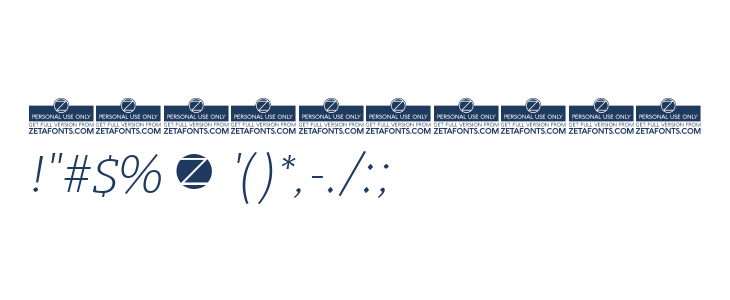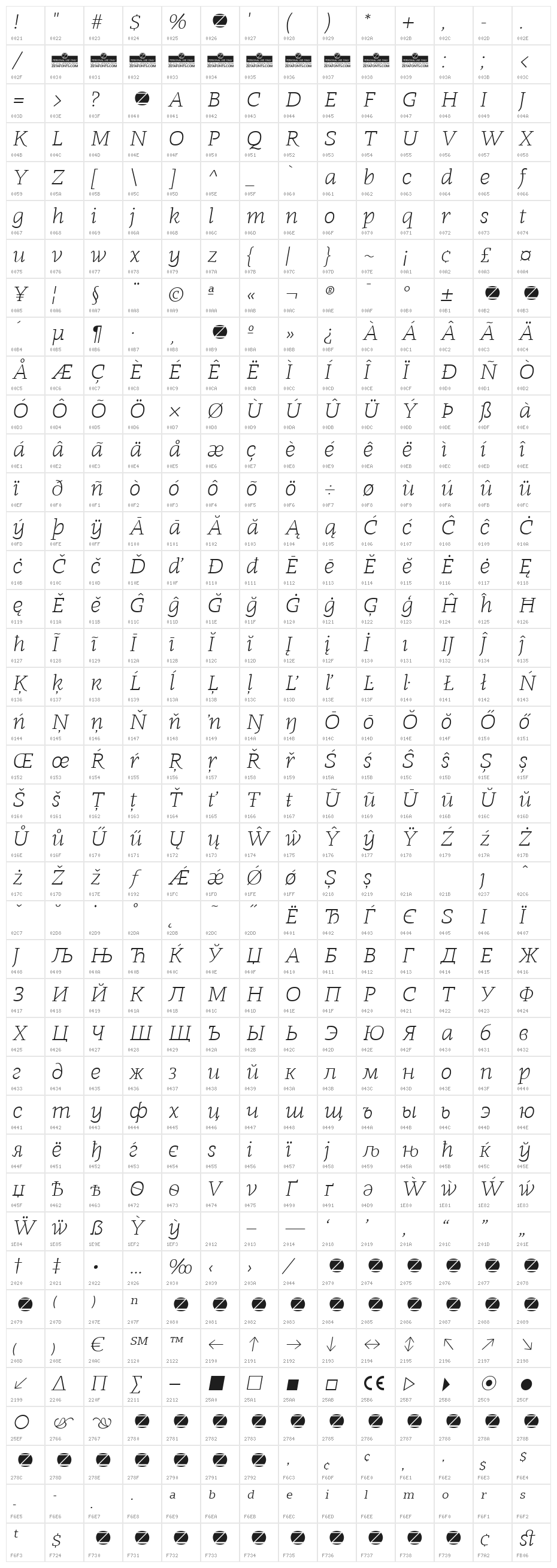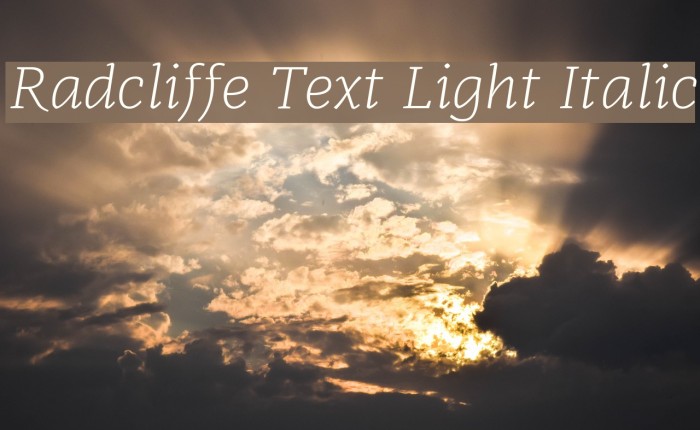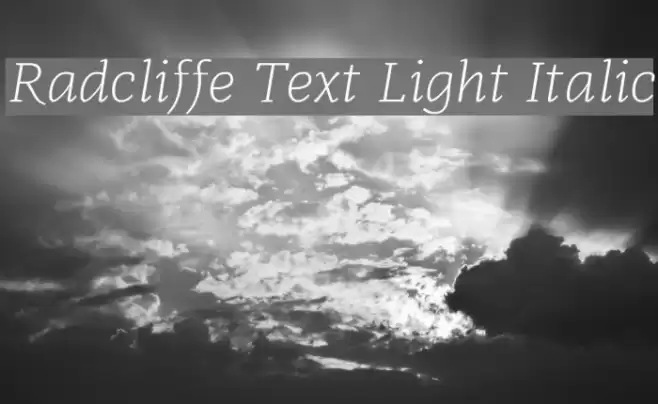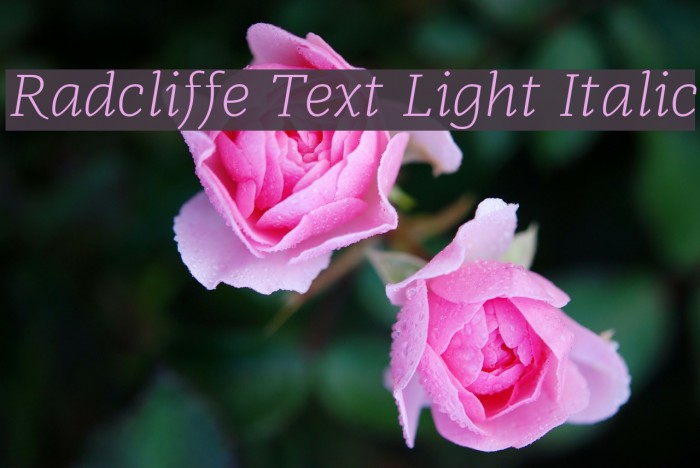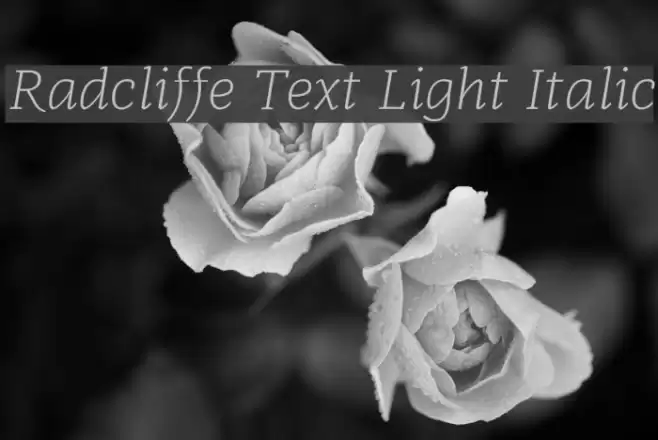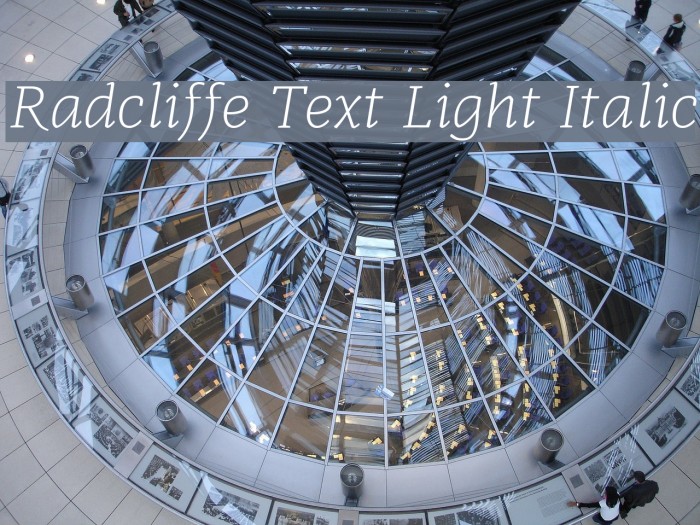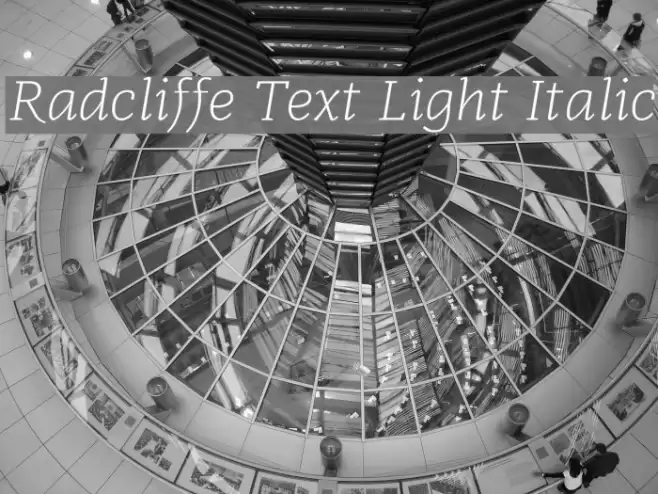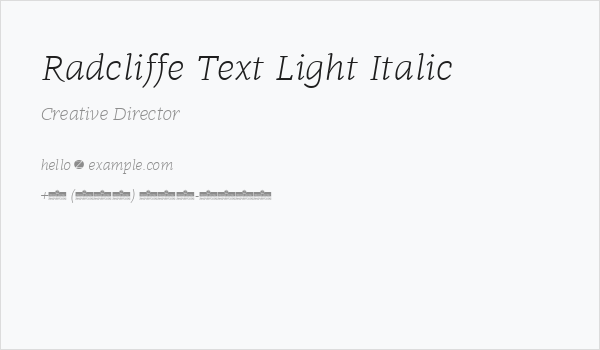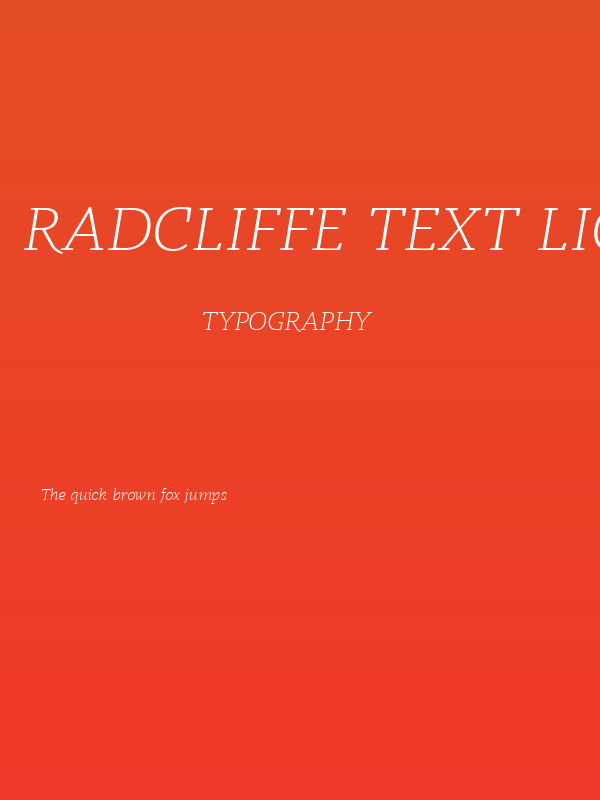
Radcliffe Text Light Italic Font
Radcliffe Text Light Italic Description
This elegant typeface features a refined and sophisticated design with a light weight and italic style. The characters exhibit a classic serif structure, characterized by delicate curves and fine lines that enhance readability while maintaining a graceful appearance. The font's italic nature adds a sense of motion and fluidity, making it suitable for formal and artistic applications. Its balanced proportions and subtle serifs give it a timeless quality, ideal for conveying elegance and tradition. The font includes a full set of uppercase and lowercase letters, numerals, and a variety of special characters, ensuring versatility in design projects.
| Proposed Projects | Ideal for wedding invitations, formal event programs, elegant branding, and editorial design. |